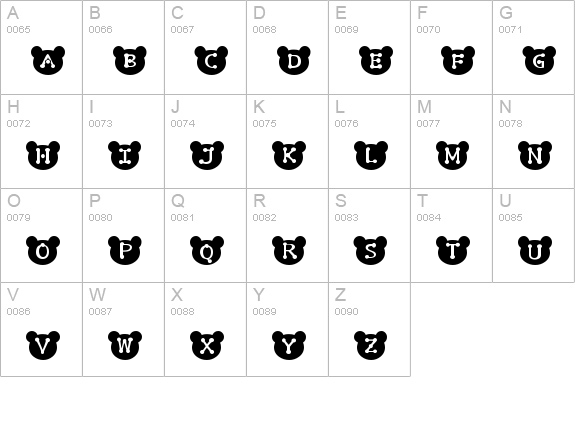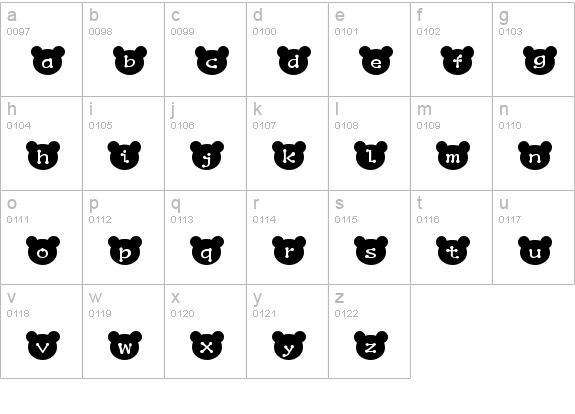
puchan Font Details
Puchan Font is a unique and stylish typeface that exudes elegance and sophistication. Its sleek lines and modern design make it perfect for a wide range of projects, from branding to marketing materials. This versatile font is sure to make your text stand out and leave a lasting impression on your audience. The best part is that Puchan Font is completely free to download at FontsMarket.com. With just a few clicks, you can add this stunning font to your collection and start using it in your projects right away. Don't miss out on this amazing opportunity to enhance your designs with the beauty and professionalism of Puchan Font. Download it now and let your creativity soar!